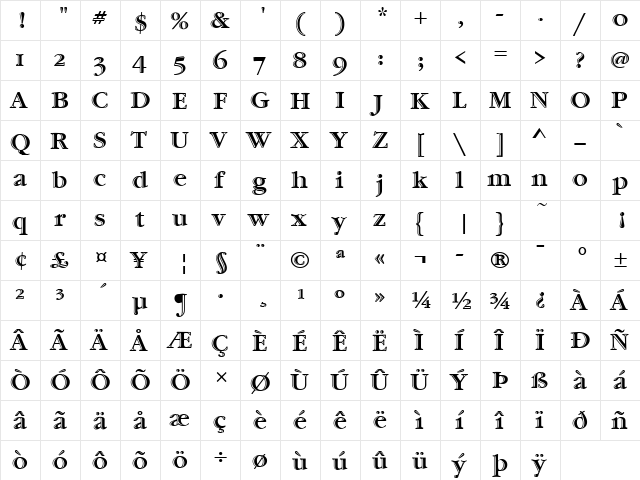
Garamond Htld OS ITC TT Regular
Design Context for Garamond Htld OS ITC TT Typeface
Garamond Htld OS ITC TT is a composed and adaptable typeface that performs quietly and consistently across a wide range of design contexts.